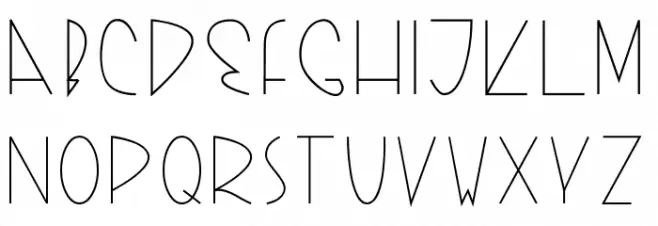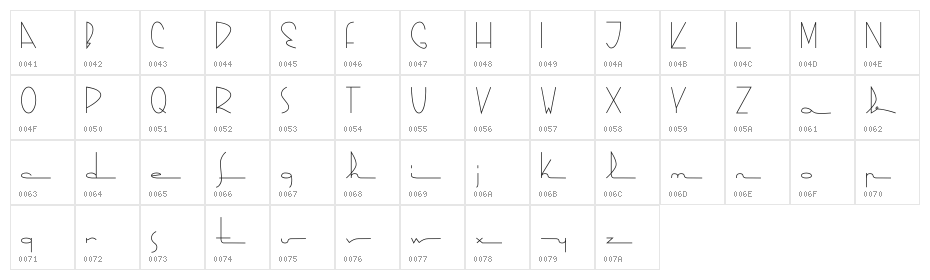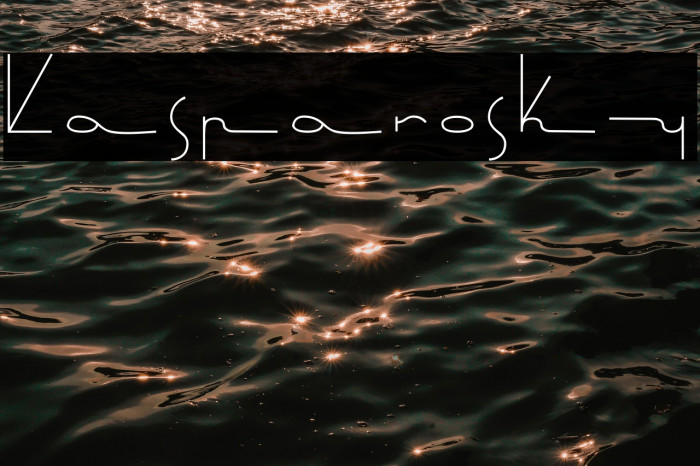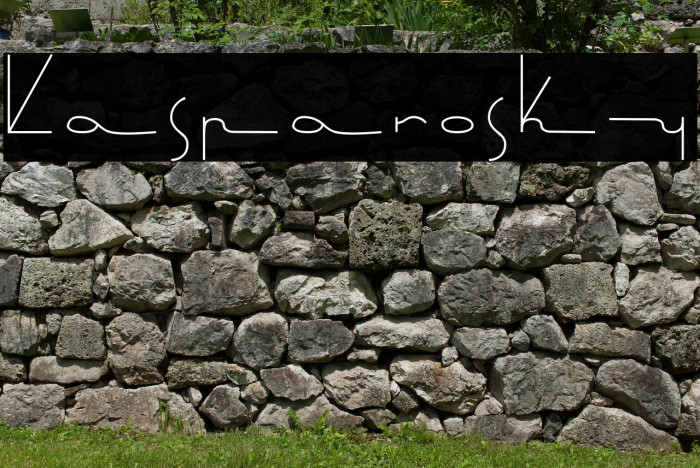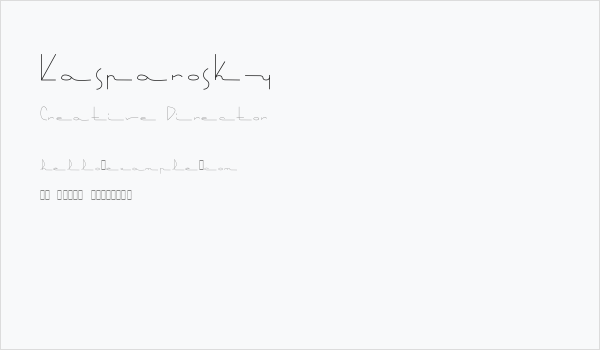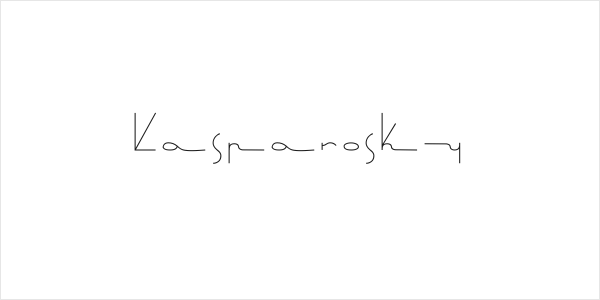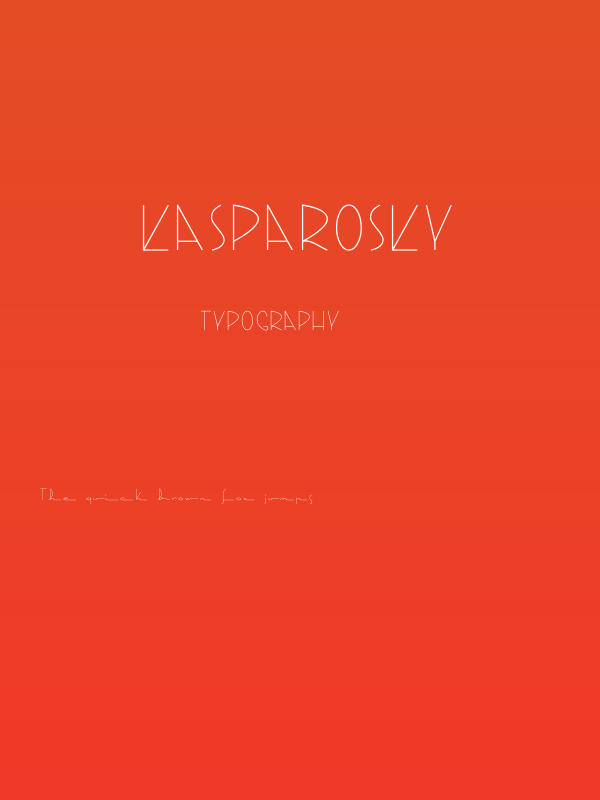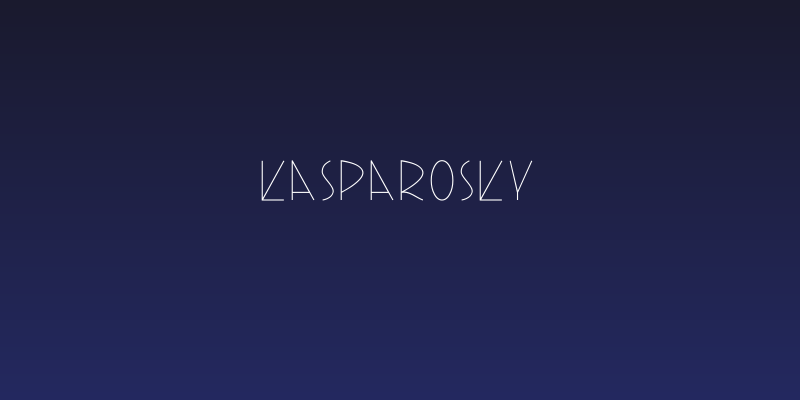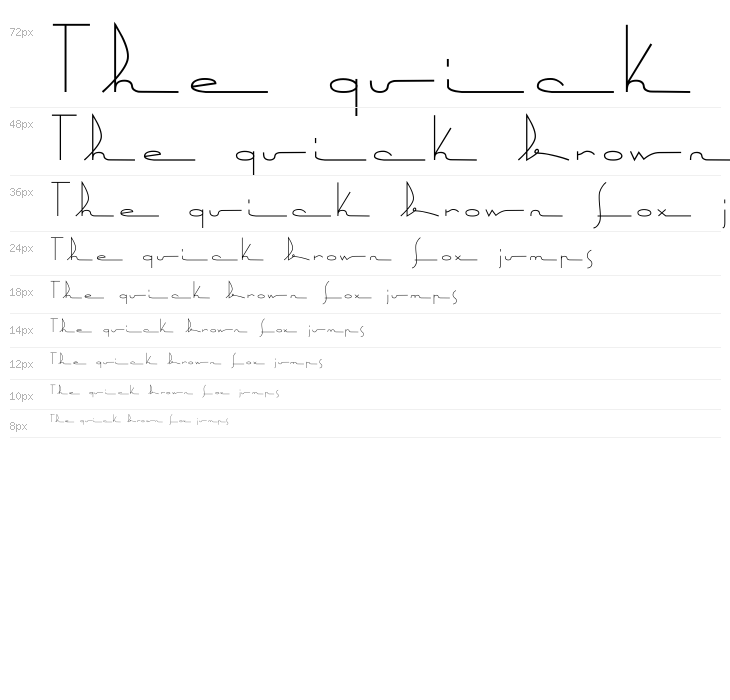
Kasparosky Font
Kasparosky Description
This font features a unique and modern design with a geometric and angular style. The uppercase letters are characterized by sharp angles and straight lines, giving them a futuristic and edgy appearance. The lowercase letters maintain a minimalist and linear form, with some characters featuring unexpected curves and twists that add a playful touch. The numbers and special characters follow the same design principles, ensuring consistency throughout the typeface. This font is ideal for projects that require a contemporary and distinctive look, such as branding, advertising, and digital media.
| Proposed Projects | Ideal for branding, advertising, digital media, and modern design projects. |